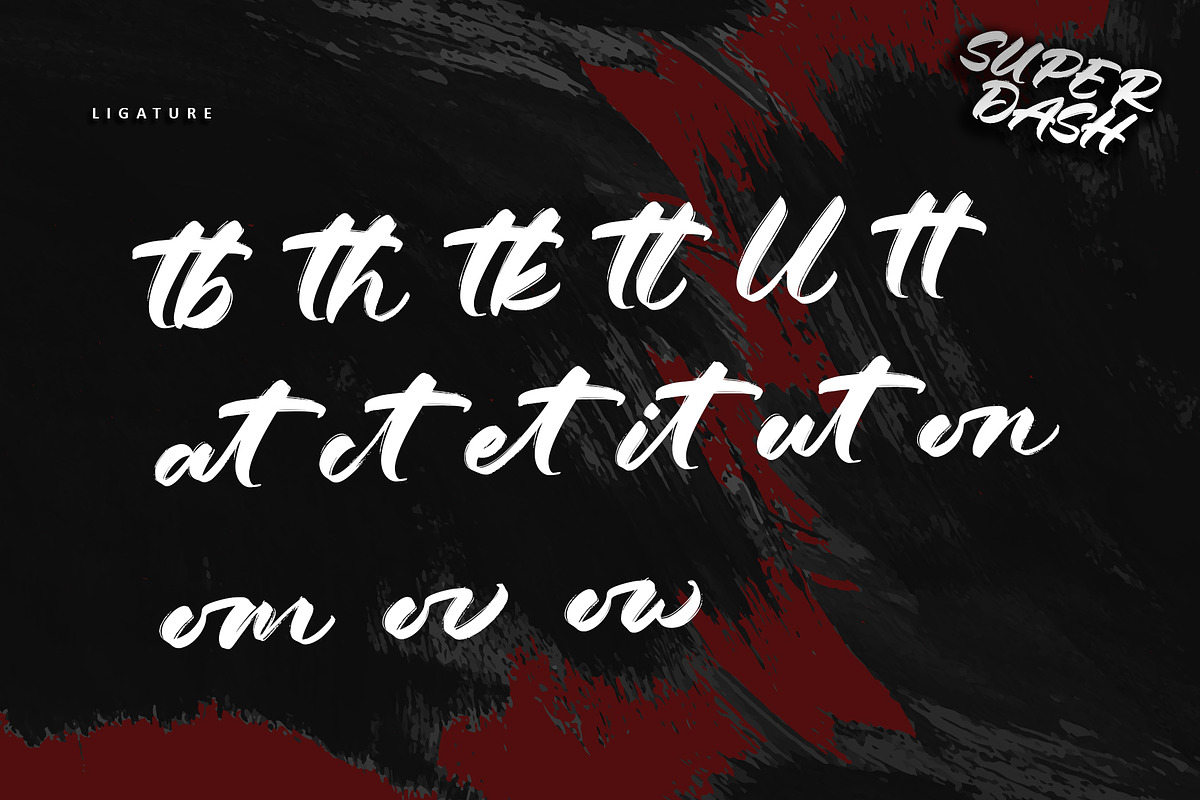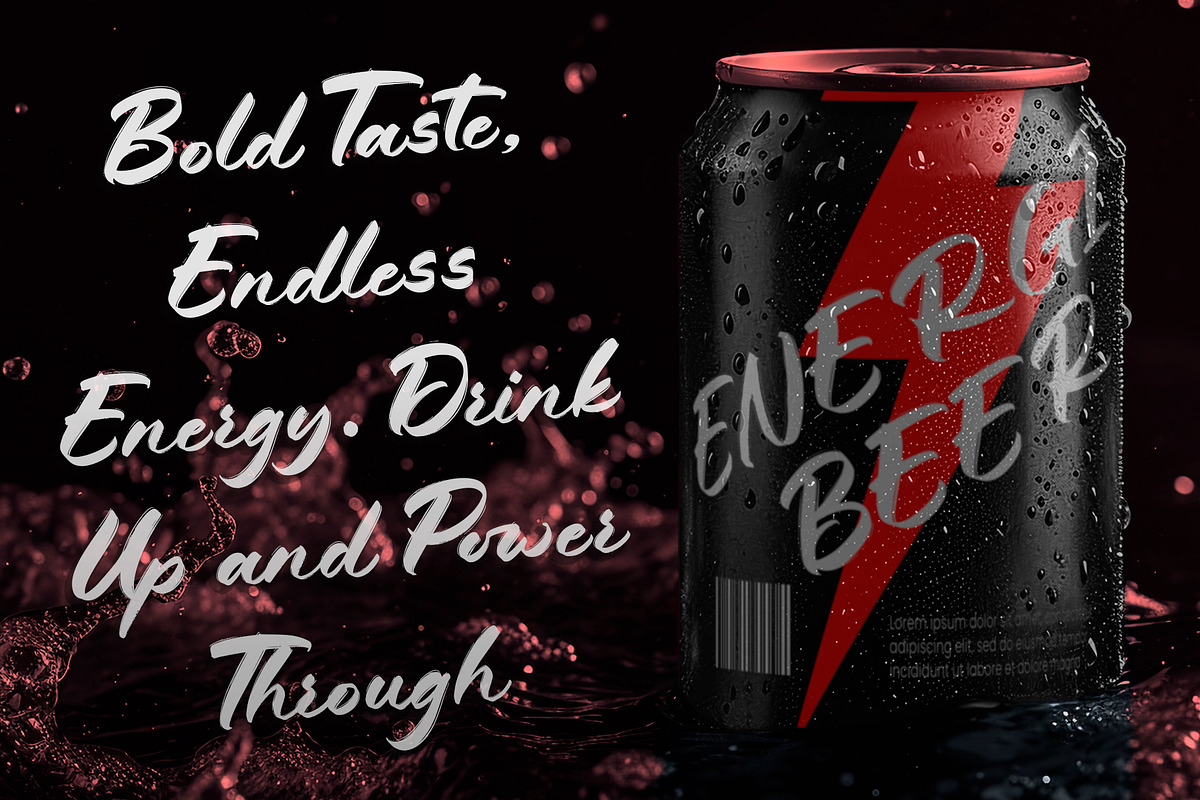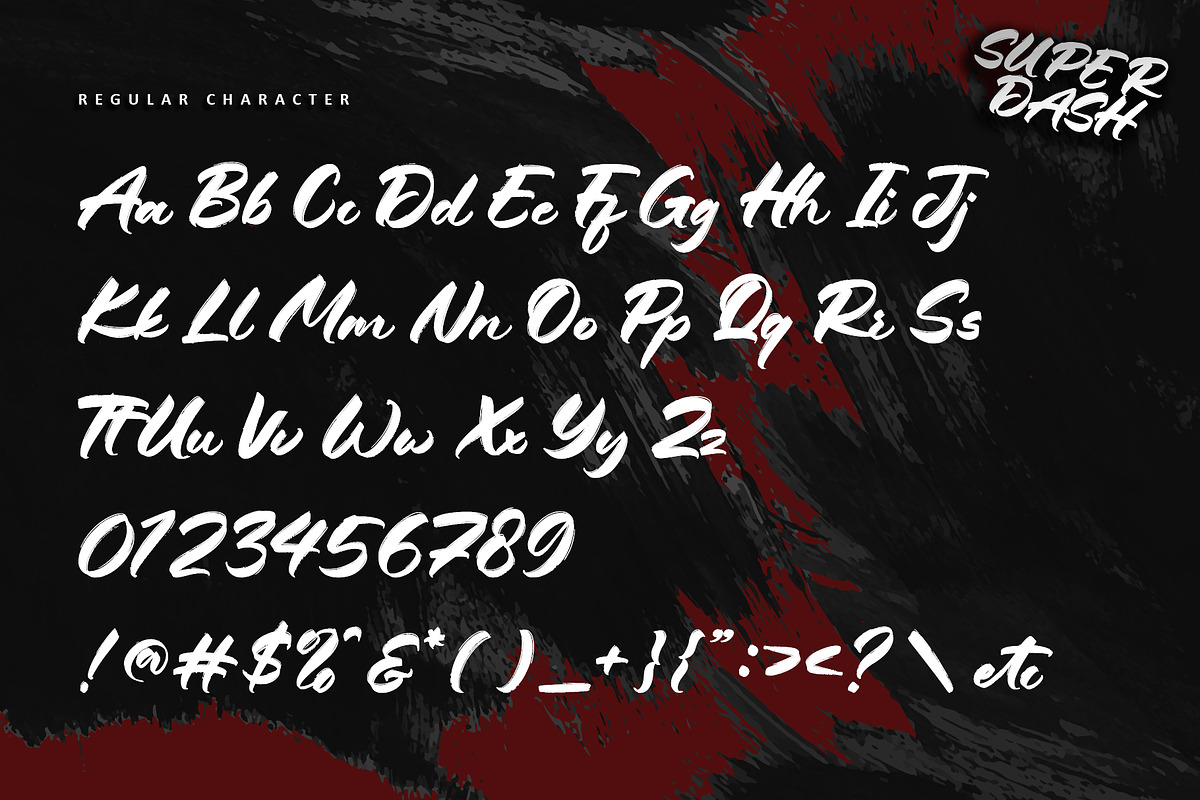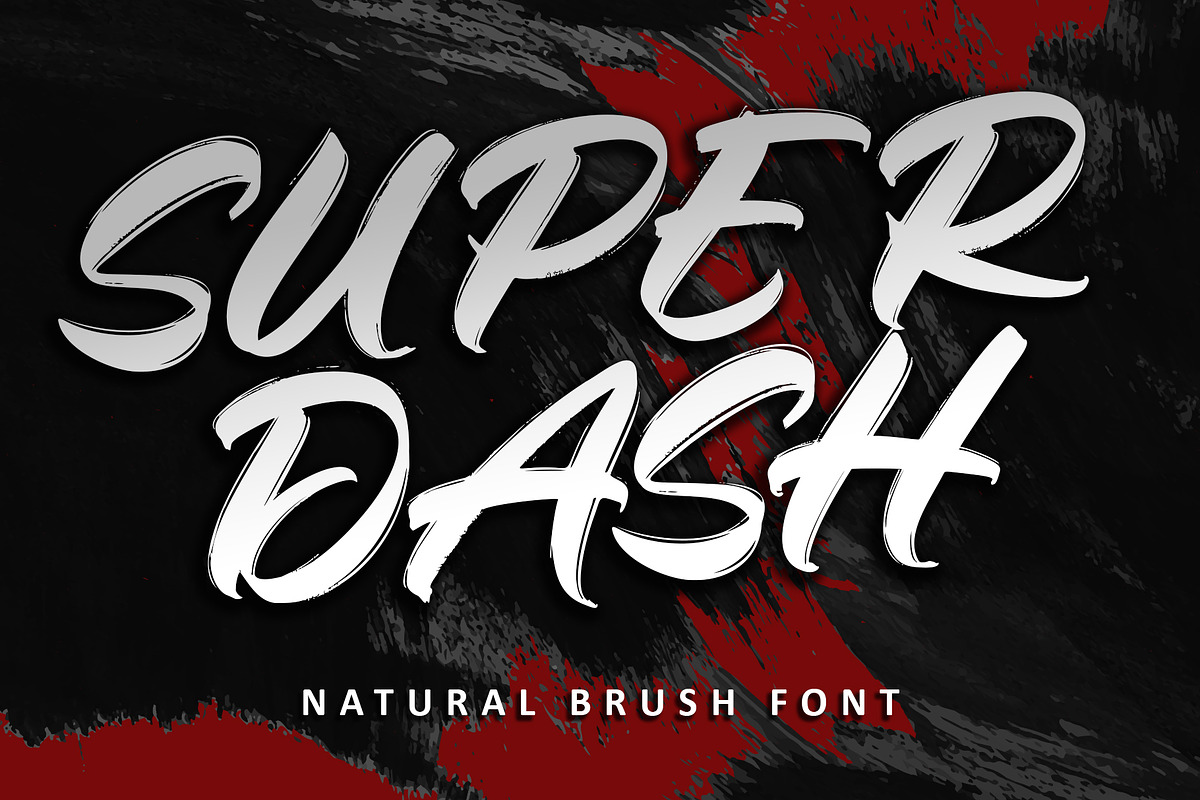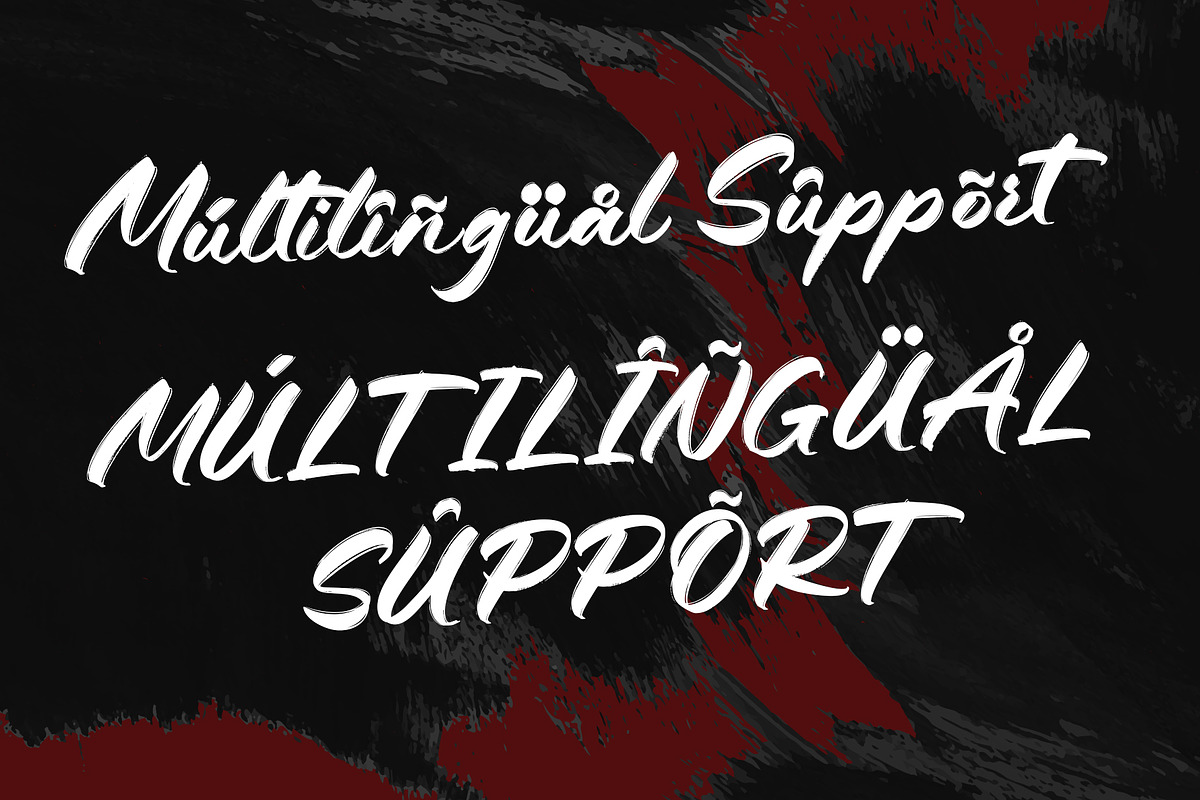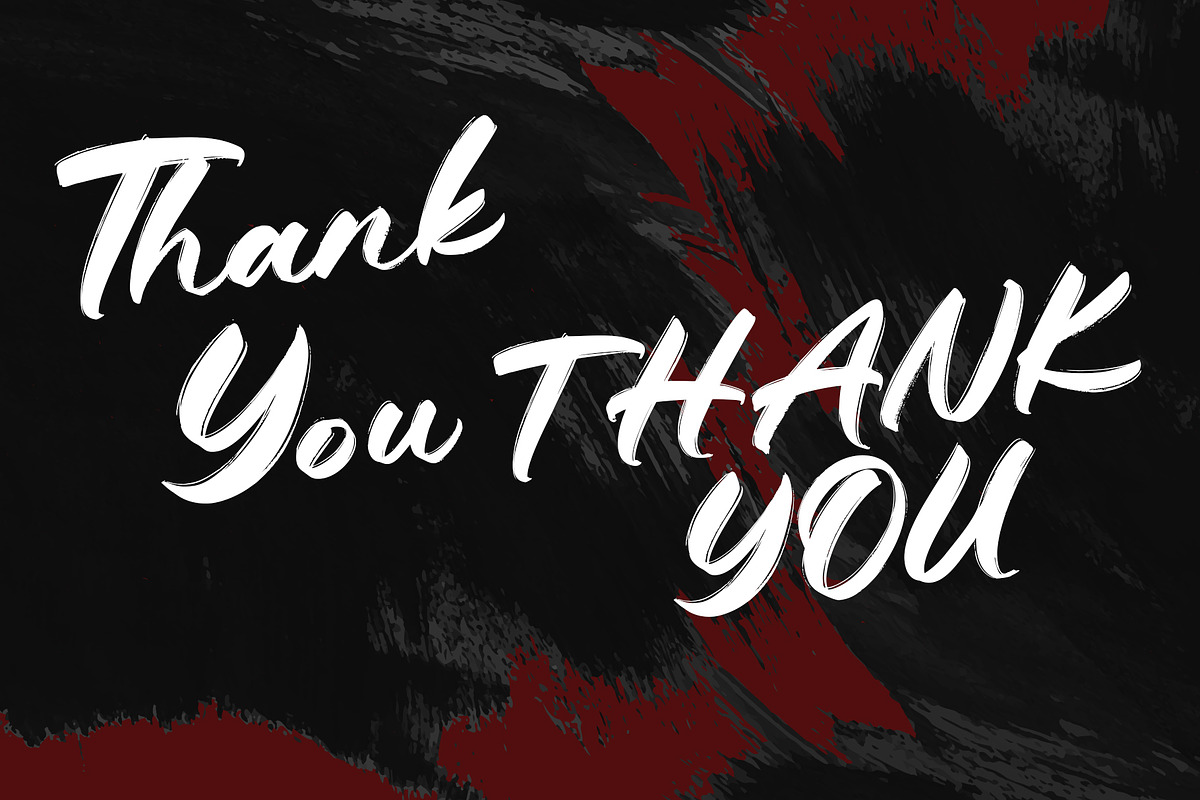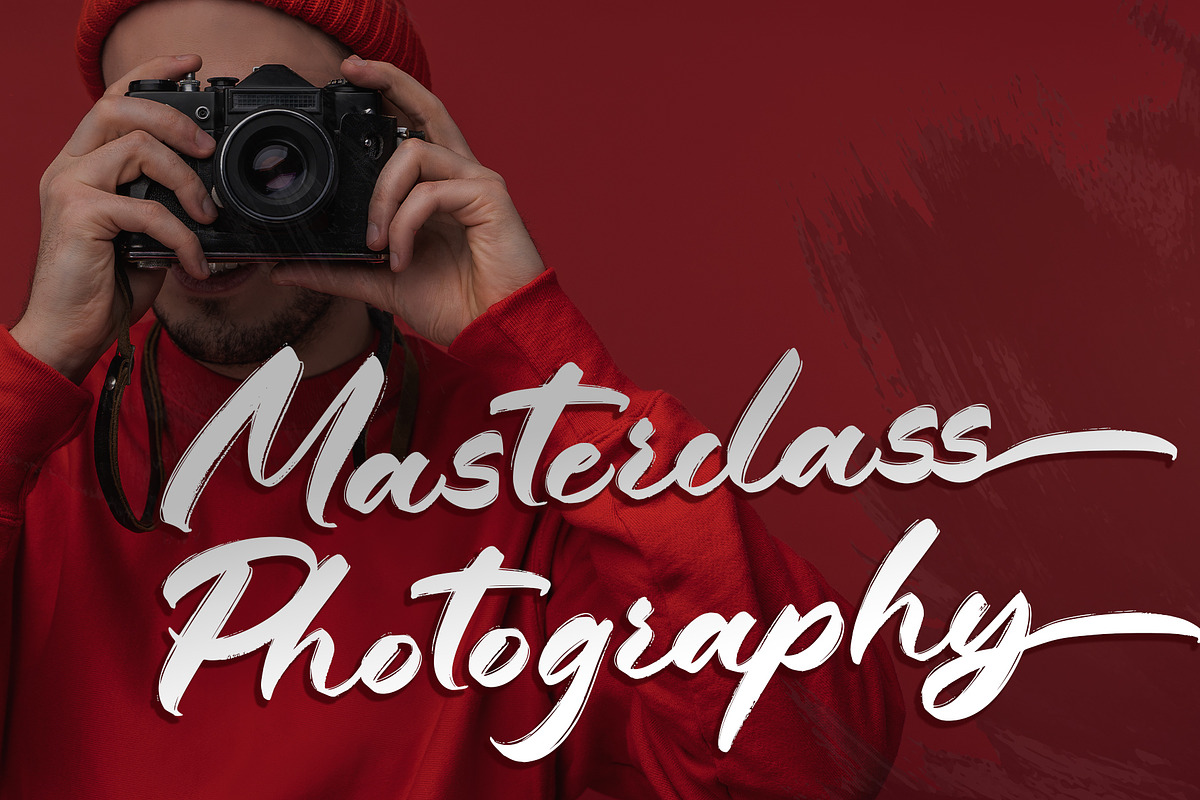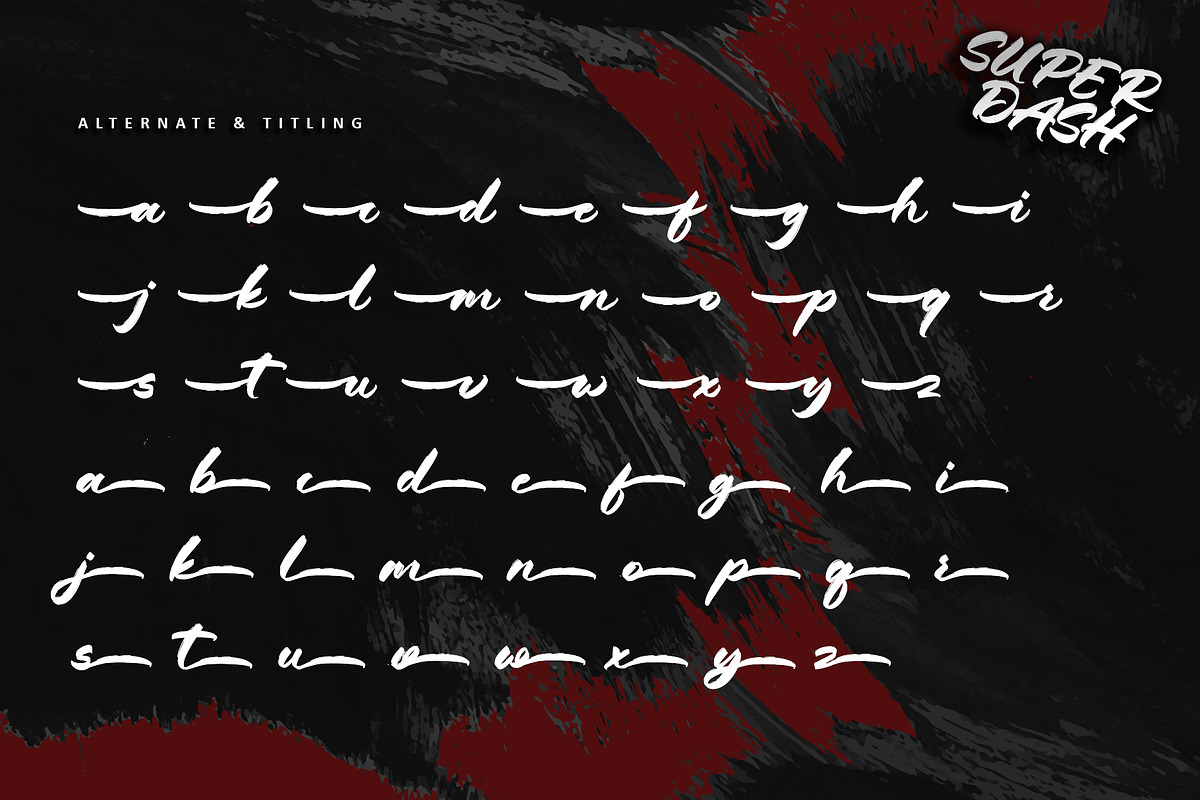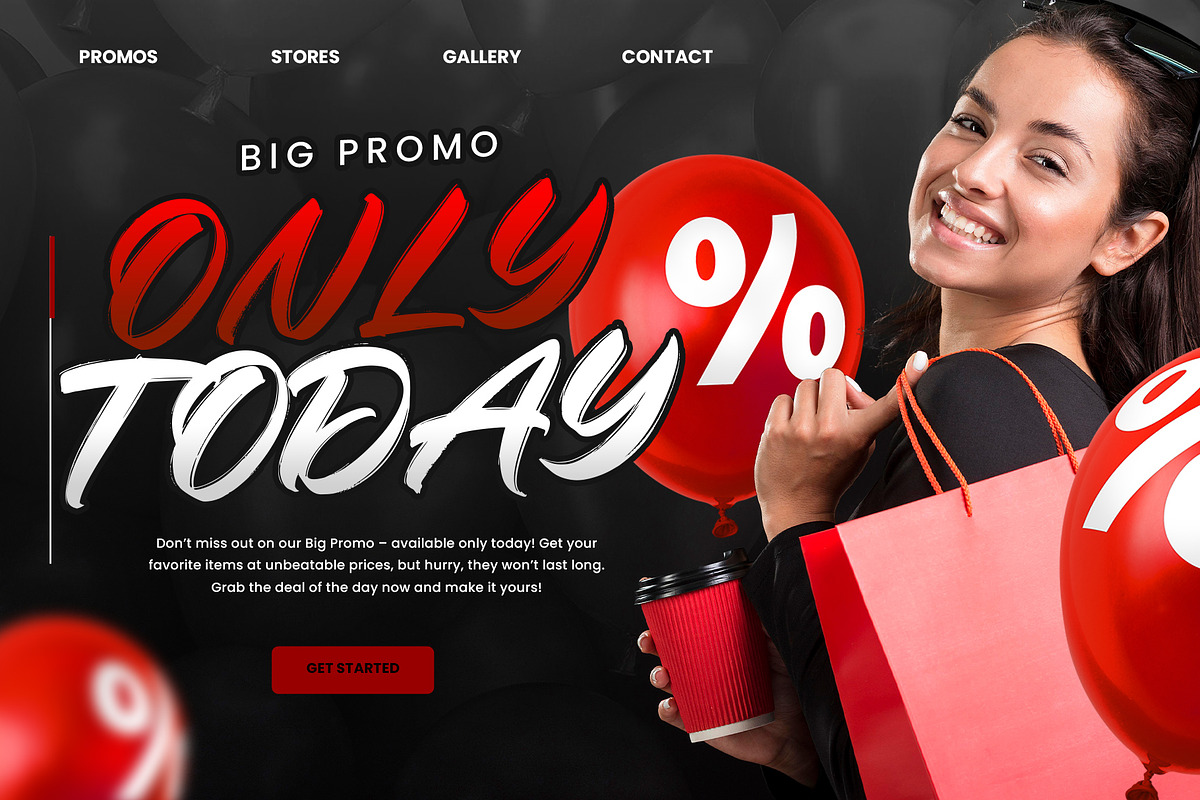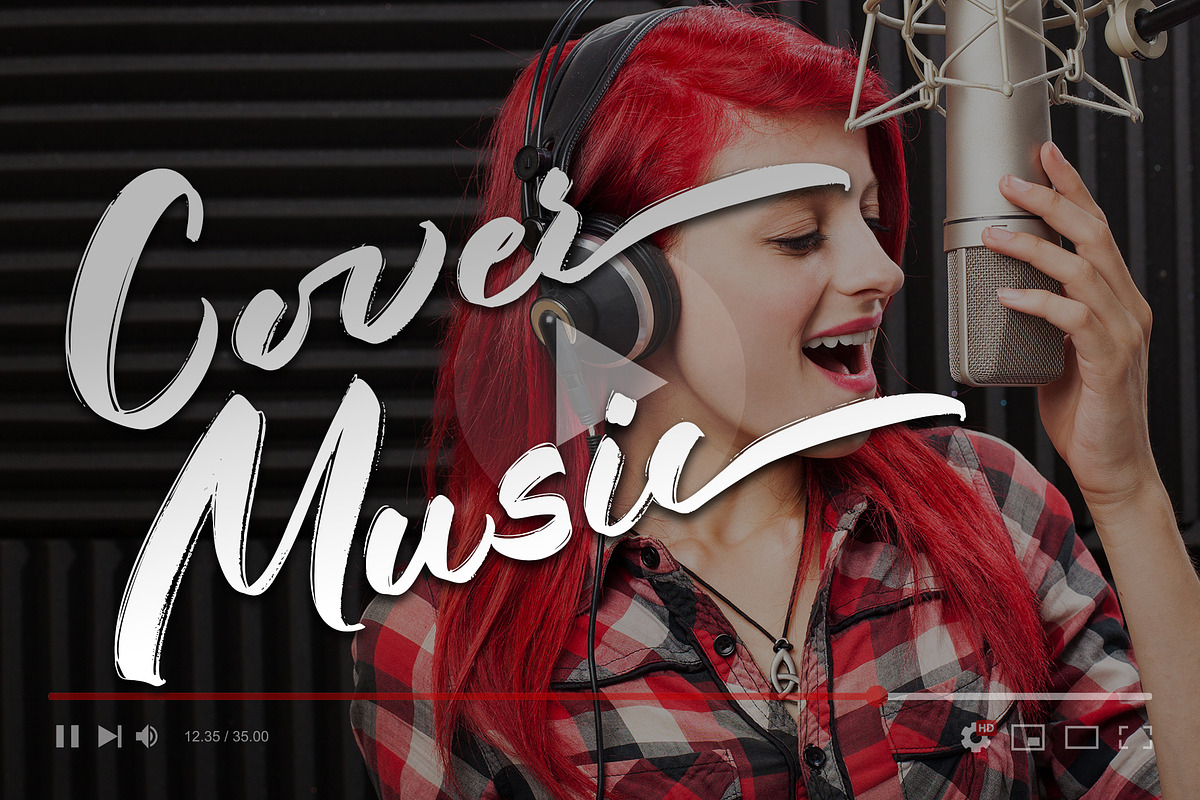
Super Dash
Introducing Super Dash, a dynamic natural brush font that races across the canvas with unstoppable energy and raw intensity. Crafted to bring a bold, expressive vibe to your projects, Super Dash features fast, sweeping strokes and a rugged texture that exudes confidence and motion. Perfect for logos, posters, packaging, and more, this font commands attention with its unique, high-speed style that adds a lively, modern edge to any design. With PUA encoding, accessing an array of distinctive glyphs and swashes is a breeze, giving you endless creative flexibility. Unleash the power of movement in your work with Super Dash—a font that captures the thrill of speed and the impact of bold design.
- Support multilingual; ä ö ü Ä Ö Ü ß ¿ ¡
- lowercase and uppercase letters
- Ligature, alternate and titling